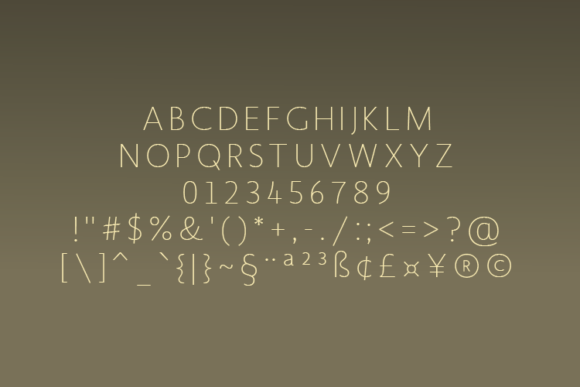
The Perfect Canvas for Your Creative Vision
As a designer, there’s nothing quite like the thrill of discovering a new font that sparks inspiration and elevates your work to the next level. It’s the moment when the perfect typeface clicks into place, and your entire design takes shape. For many of us, that moment came when we stumbled upon Blankco Thin Font – a fresh, geometric, sans-serif font that’s been making waves in the design community.
Blankco Thin Font is a versatile and powerful tool that’s perfect for any project, from magazines and posters to branding and websites. Its clean lines, sharp edges, and small stroke contrast make it an ideal choice for designers who crave a modern, neo-grotesk aesthetic. With its big x-height value and geometrical letterforms, Blankco Thin Font is an invaluable addition to any designer’s toolkit.
Key Features of Blankco Thin Font
- Unique Characteristics: The font features a distinctive, minimalist design with clean lines and a subtle texture, making it ideal for use in modern and sleek designs.
- Legibility: Blankco Thin Font is highly legible, even at small font sizes, ensuring that your text remains clear and easy to read.
- Comprehensive Character Set: The font includes a comprehensive character set, including Latin, Cyrillic, and Greek alphabets, as well as punctuation marks and symbols.
Blankco Thin Font Review
Overall, I found the Blankco Thin Font to be a decent addition to any digital designer’s toolkit. Here are some of its strengths and weaknesses.
- Unique Aesthetic: The font’s thin lines and subtle curves make it perfect for creating minimalist designs.
- Highly Legible: Despite its delicate appearance, the font is surprisingly easy to read, even at small font sizes.
- Customization Options: The font includes a range of weights and styles, allowing for a high degree of customization.
- Not Ideal for Body Text: While the font is great for headlines and titles, it may not be the best choice for body text due to its delicate nature.
- May Not Be Accessible: The font’s thin lines may not be suitable for users with visual impairments or those who require larger text sizes.
In conclusion, the Blankco Thin Font is a solid choice for designers looking to add a touch of elegance to their projects. However, it’s essential to consider the limitations and use it judiciously to achieve the best results.
Use the Blankco Thin Font for minimalist and modern designs.
Pair it with bold fonts for contrast and emphasis.
Experiment with different font sizes and colors to achieve the desired look.
Headlines and titles
Body text for minimalist designs
Logos and branding materials